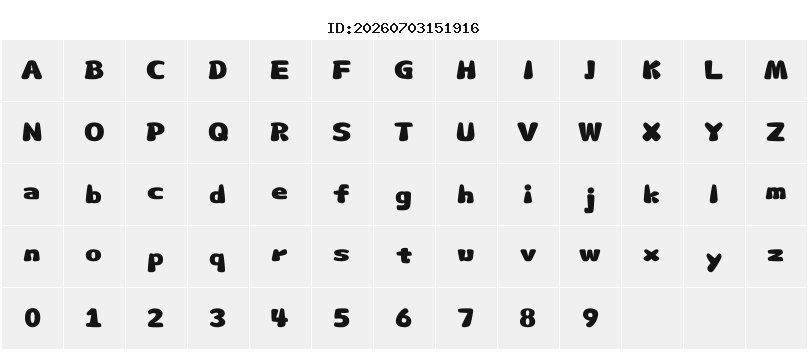
317-上首润玉体 Preview
• Font Name: 317-上首润玉体
• Font ID: 317-SSRunYuTi:Version 4.00
• Full Font Name: 317-上首润玉体
• Version: Version 4.00 February 6, 2024
• PostScript Name: 317-SSRunYuTi
• Character Count: 7568
About 317-上首润玉体.ttf
317-上首润玉体.ttf is a modern, elegant sans-serif font designed for ultimate readability and visual harmony. Perfect for branding, headlines, web design, and print materials.